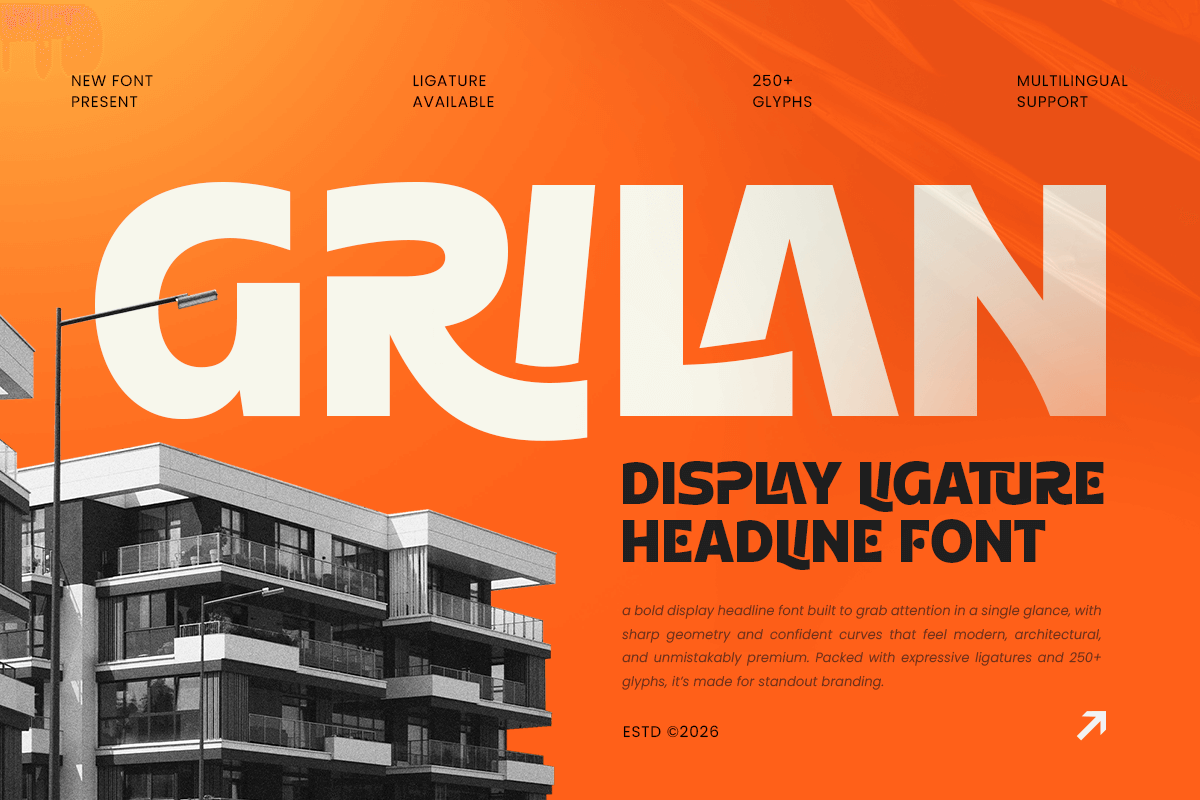
Grilan
-Display Ligature Headline FontGrilan - Display Ligature Headline Font
GRILAN is a display ligature headline font crafted to deliver powerful impact with a distinctive, connected rhythm. Featuring stylish ligature combinations and bold display proportions, this typeface creates a confident headline tone that feels modern, expressive, and instantly attention-grabbing.
Designed for statement typography, GRILAN works beautifully across posters, magazine covers, branding headlines, website hero titles, packaging, signage, presentations, and social media graphics. The ligatures add a custom, crafted feel—helping your titles look more premium and unique while keeping the overall composition clean and readable across print and digital layouts.
Whether you’re building a bold brand identity, designing an editorial concept, creating high-impact promotional visuals, or crafting modern headline systems, GRILAN provides a strong display foundation that makes every title feel dynamic, polished, and unforgettable.
Inspiration Behind GRILAN
GRILAN is inspired by modern headline typography and contemporary ligature styling—where connected forms add personality and elevate visual hierarchy. The design focuses on bold structure, smooth flow, and striking rhythm to support high-impact branding, editorial titles, and modern display communication.
GRILAN Font Features:
Bold display letterforms optimized for headline typography
Stylish ligatures for a custom, premium title feel
Strong visual hierarchy for posters, covers, and branding systems
High readability for modern display and promotional layouts
Headlines, titles, and poster typography
Branding systems, logos, and modern wordmarks
Editorial layouts, magazine covers, and campaign visuals
Packaging, signage, presentations, and promo design
Social media graphics, website headers, and digital banners
Make every headline unforgettable with GRILAN—crafted for bold ligature titles with modern display impact. ✨